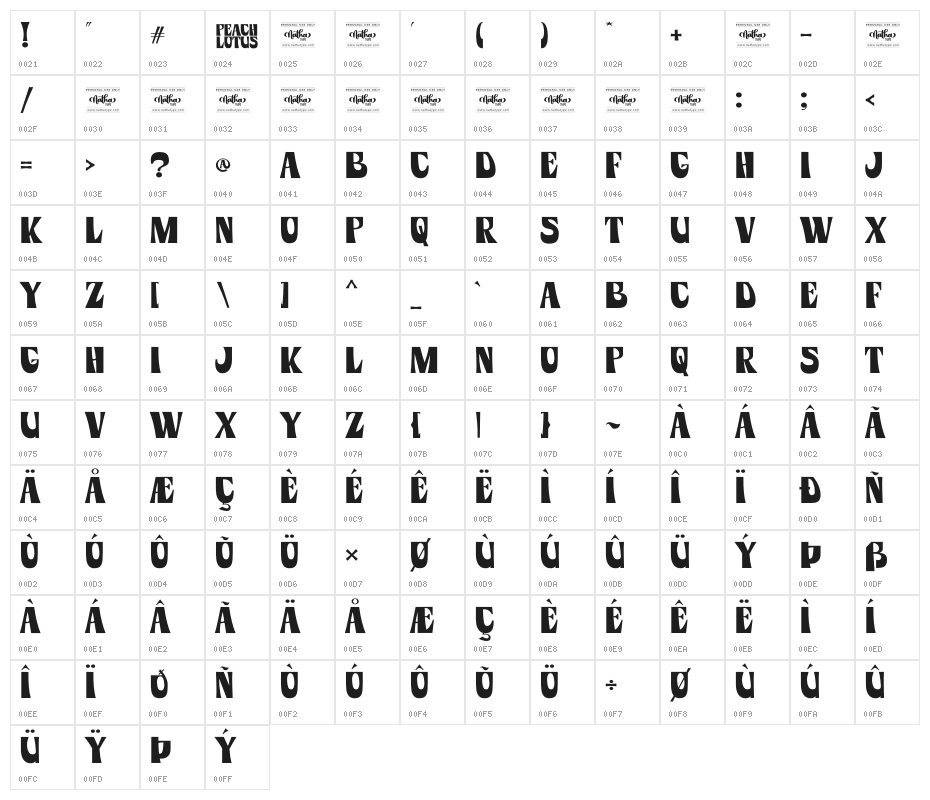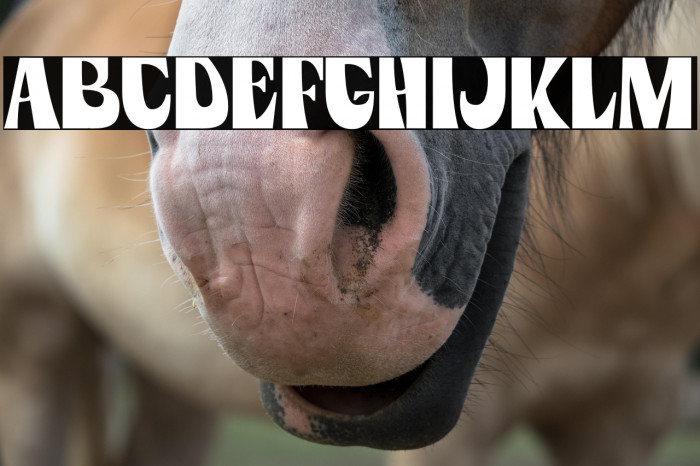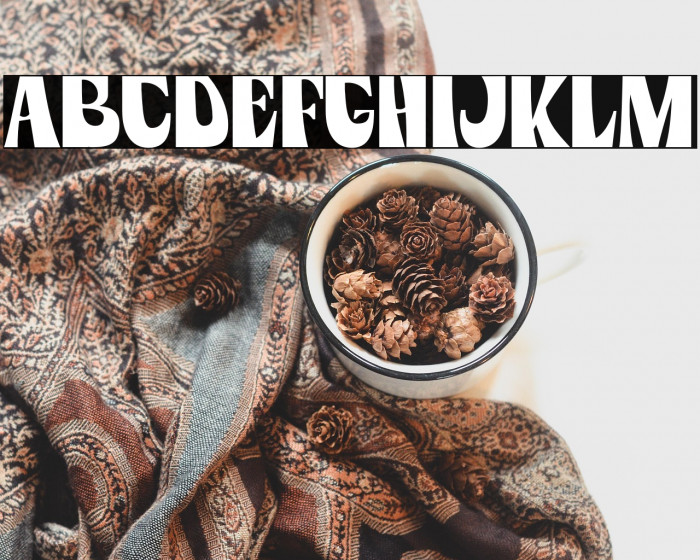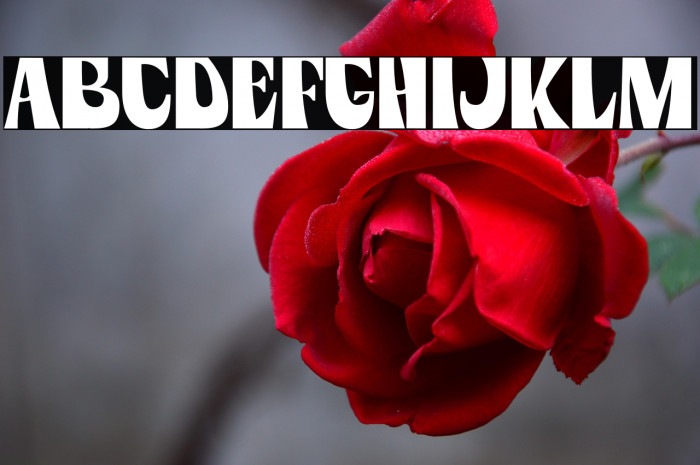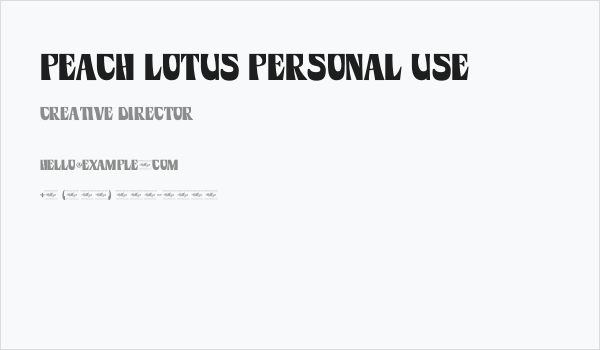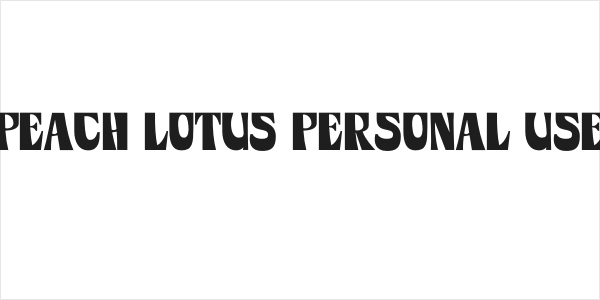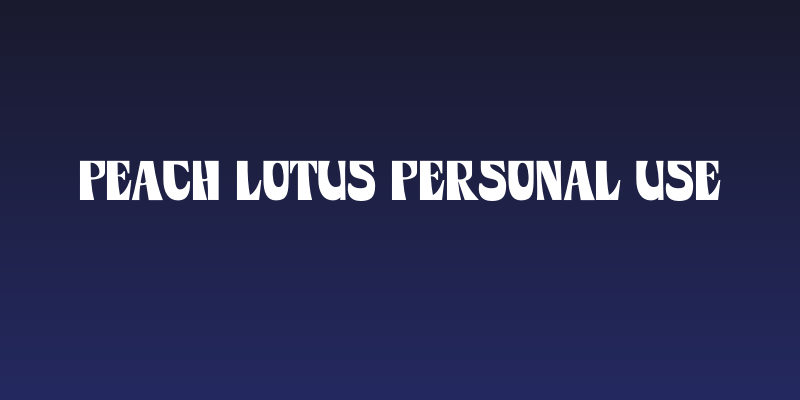
Peach Lotus Personal Use Font
Peach Lotus Personal Use Description
This font features a bold and striking design with a unique blend of sharp and curved elements, creating a dynamic and eye-catching appearance. The uppercase letters are particularly prominent, with exaggerated serifs and varying stroke widths that add a sense of movement and flair. The lowercase letters maintain the same boldness, ensuring consistency throughout the typeface. The numbers and special characters are equally bold, complementing the overall style. This font's distinctive character makes it ideal for projects that require a strong visual impact.
| Proposed Projects | Ideal for posters, branding, headlines, and any design requiring a strong, attention-grabbing typeface. |